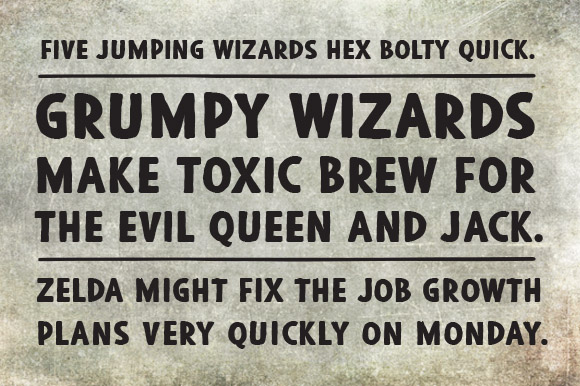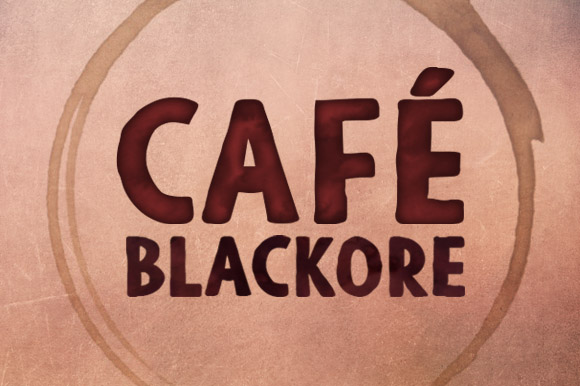
Introducing Blackore Handmade Font: The Perfect Choice for Bold and Creative Designs
In the world of typography, a good font can make all the difference in creating a lasting impression. If you’re looking for a typeface that can help your text stand out from the crowd, look no further than Blackore Handmade Font. This thick, striking font is designed to grab attention and add a touch of personality to your designs.
What is Blackore Handmade Font?
Blackore Handmade Font is a unique and eye-catching typeface that is perfect for designers and crafters who want to add a personal touch to their work. With its thick and bold strokes, this font is sure to make a statement. Whether you’re working on a logo, a poster, or a social media graphic, Blackore Handmade Font is the perfect choice for anyone who wants to create a lasting impression.
Key Features of Blackore Handmade Font
- Thick and bold strokes: Blackore Handmade Font features thick and bold strokes that are sure to grab attention.
- Handmade look and feel: This font has a handmade look and feel that adds a personal touch to your designs.
- Perfect for headlines and titles: Blackore Handmade Font is perfect for headlines and titles, but it can also be used for body text and other design elements.
- Easy to read: Despite its bold strokes, Blackore Handmade Font is easy to read, making it perfect for a wide range of design applications.
Who Can Benefit from Using Blackore Handmade Font?
Blackore Handmade Font is perfect for a wide range of designers and crafters, including:
- Graphic designers: Graphic designers can use Blackore Handmade Font to create bold and eye-catching designs for their clients.
- Crafters: Crafters can use Blackore Handmade Font to add a personal touch to their handmade products, such as labels, packaging, and marketing materials.
- Small business owners: Small business owners can use Blackore Handmade Font to create bold and eye-catching marketing materials, such as posters, flyers, and social media graphics.
Tips for Using Blackore Handmade Font
- Use it sparingly: Because Blackore Handmade Font is so bold, it’s best to use it sparingly. Use it for headlines and titles, and then switch to a more traditional font for body text.
- Experiment with different colors: Blackore Handmade Font looks great in a variety of colors, so don’t be afraid to experiment. Try using it in different colors to add some visual interest to your designs.
- Pair it with other fonts: Blackore Handmade Font can be paired with other fonts to create a unique and eye-catching design. Try pairing it with a more traditional font for a bold and modern look.
| Font Name | Blackore Handmade Font |
| Author | Graphite |
Blackore Handmade Font is a unique and eye-catching typeface that is perfect for designers and crafters who want to add a personal touch to their work. With its thick and bold strokes, this font is sure to grab attention and make a lasting impression. Whether you’re working on a logo, a poster, or a social media graphic, Blackore Handmade Font is the perfect choice for anyone who wants to create a bold and eye-catching design.